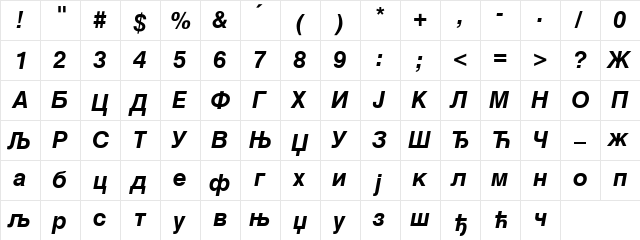
HelveticaCir BoldItalic Font Preview
HelveticaCir BoldItalic
Design Context for HelveticaCir Typeface
HelveticaCir is a composed and adaptable typeface that performs quietly and consistently across a wide range of design contexts. The slanted form adds forward momentum and visual energy. Its bold stroke weight gives it real presence on the page.
Pro Tip: Try HelveticaCir for annotation and caption copy alongside an upright companion — the contrast in angle creates a dynamic but ordered typographic system.